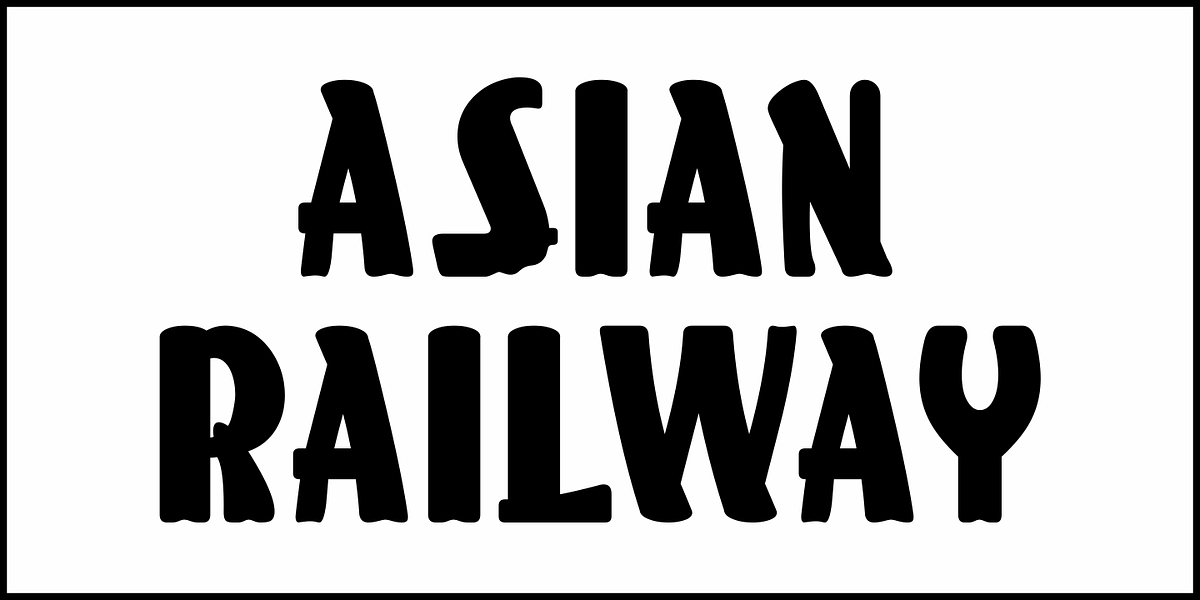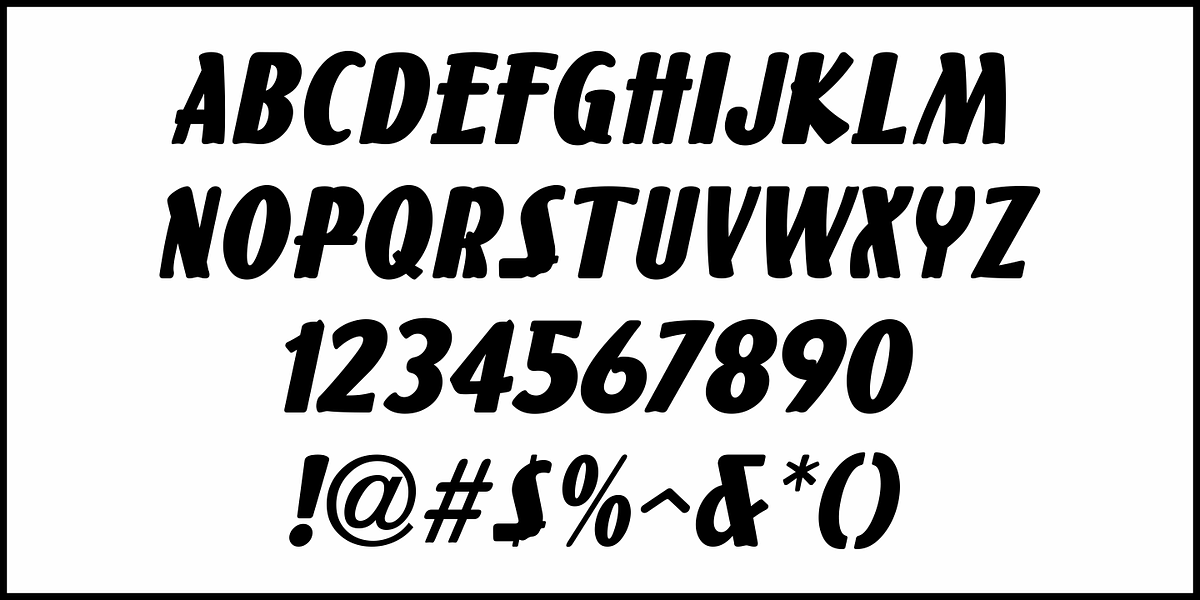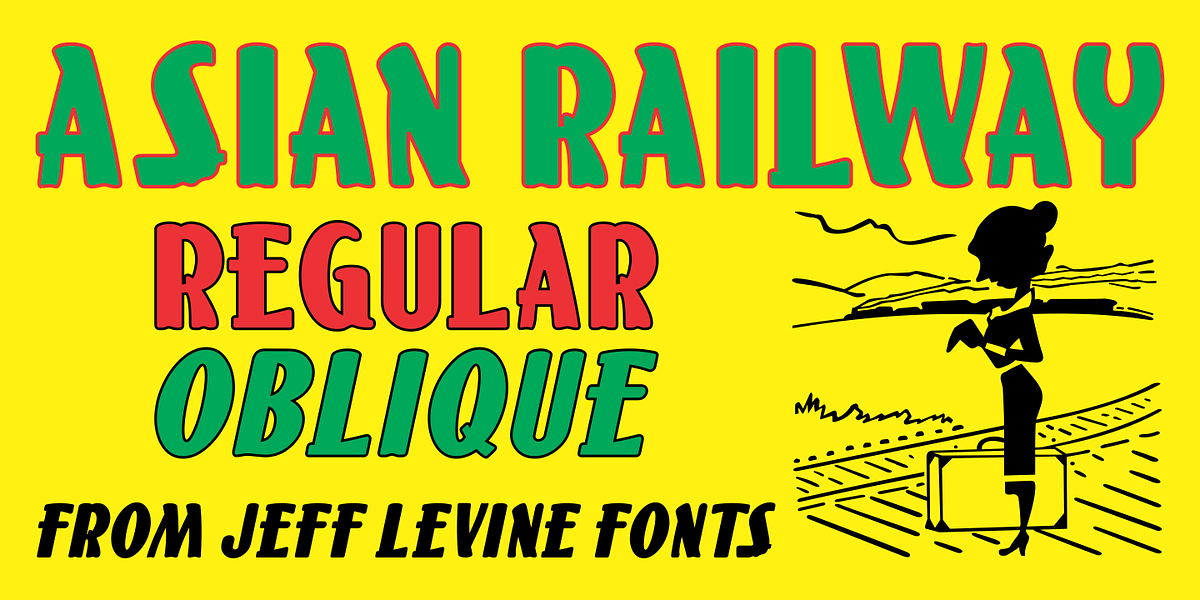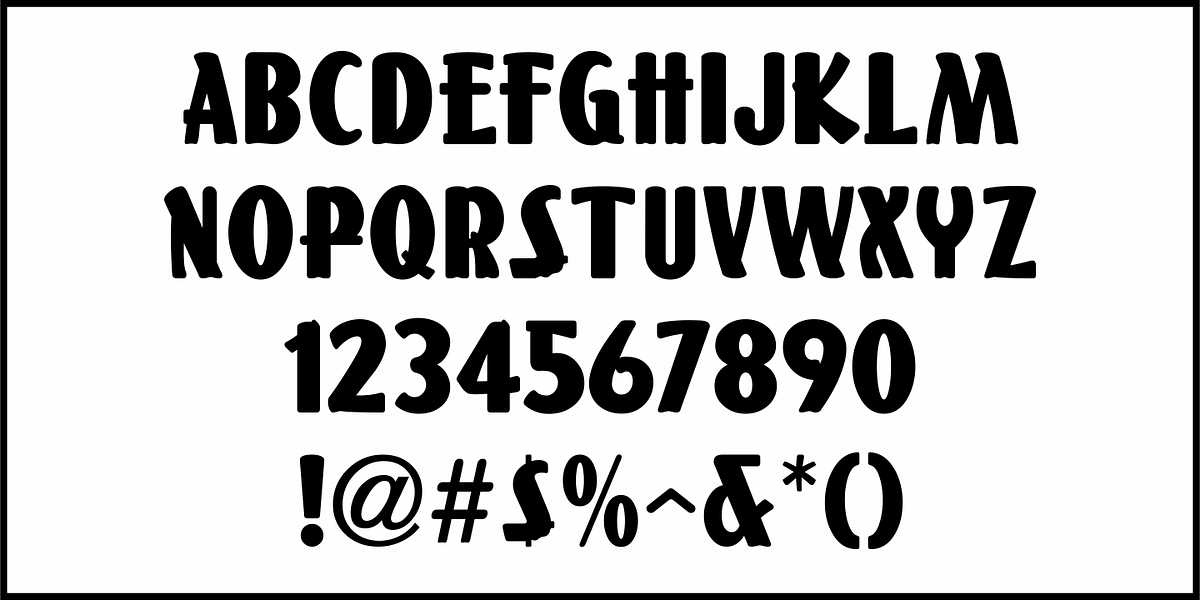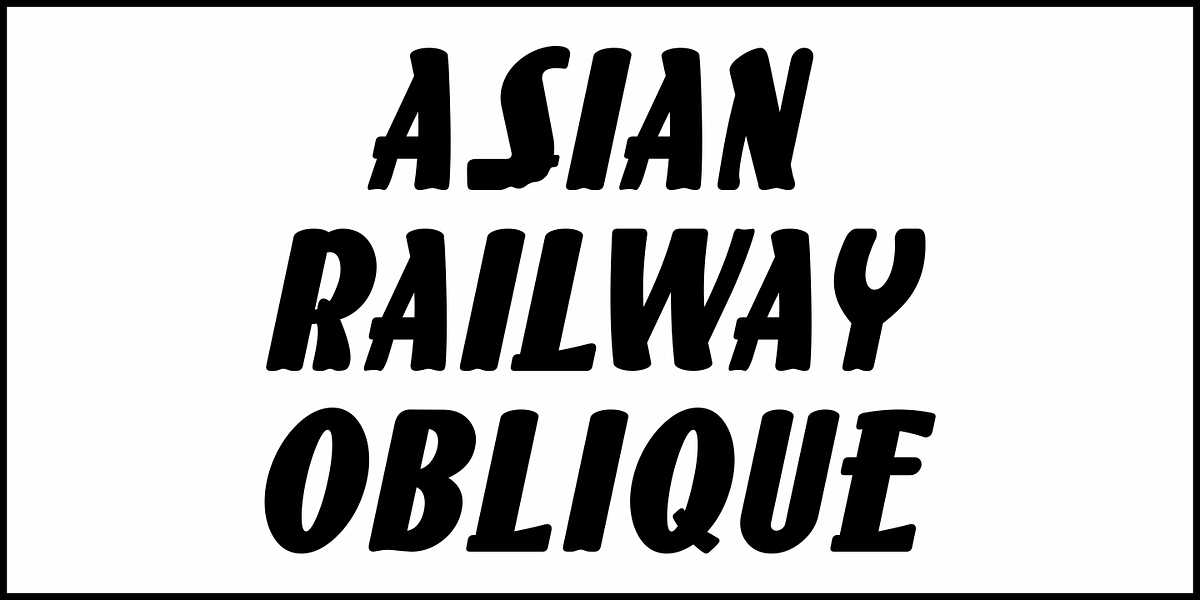
Asian Railway JNL
A poster for the 1932 film “Shanghai Express” starring Marlene Dietrich has the films name is a semi-Asian lettering style.
This bold poster font is now available as Asian Railway JNL in both regular and oblique versions.